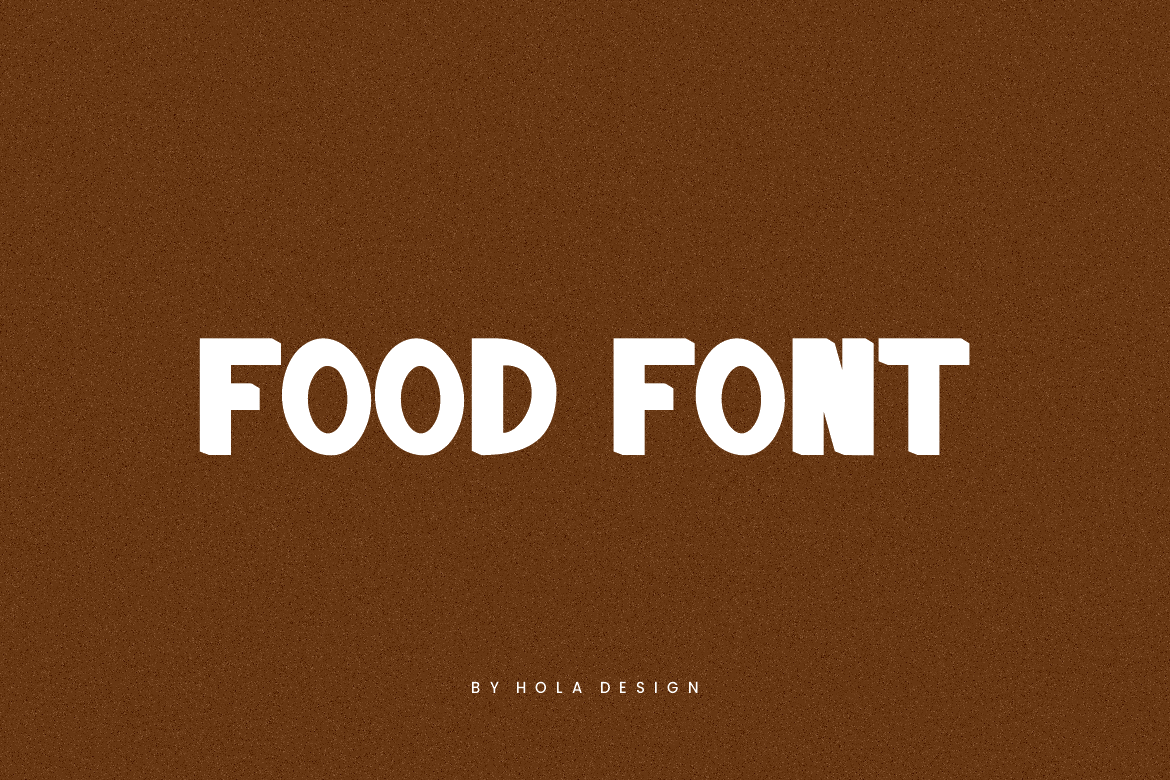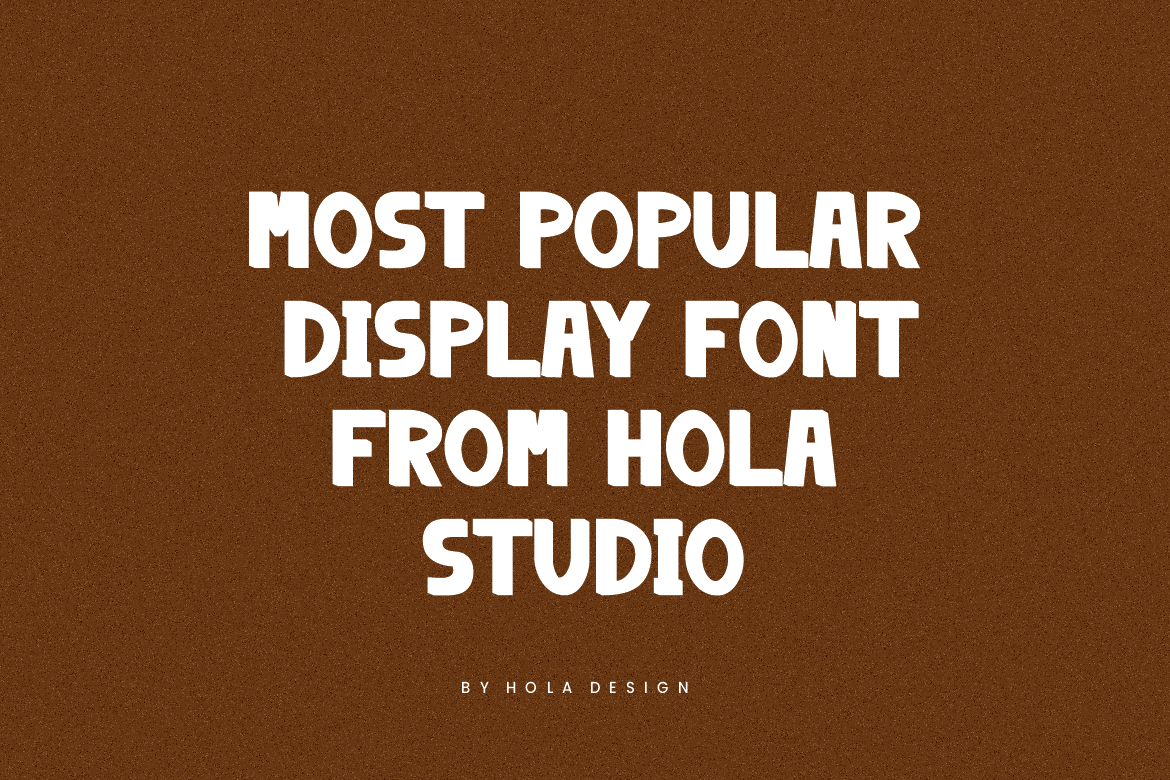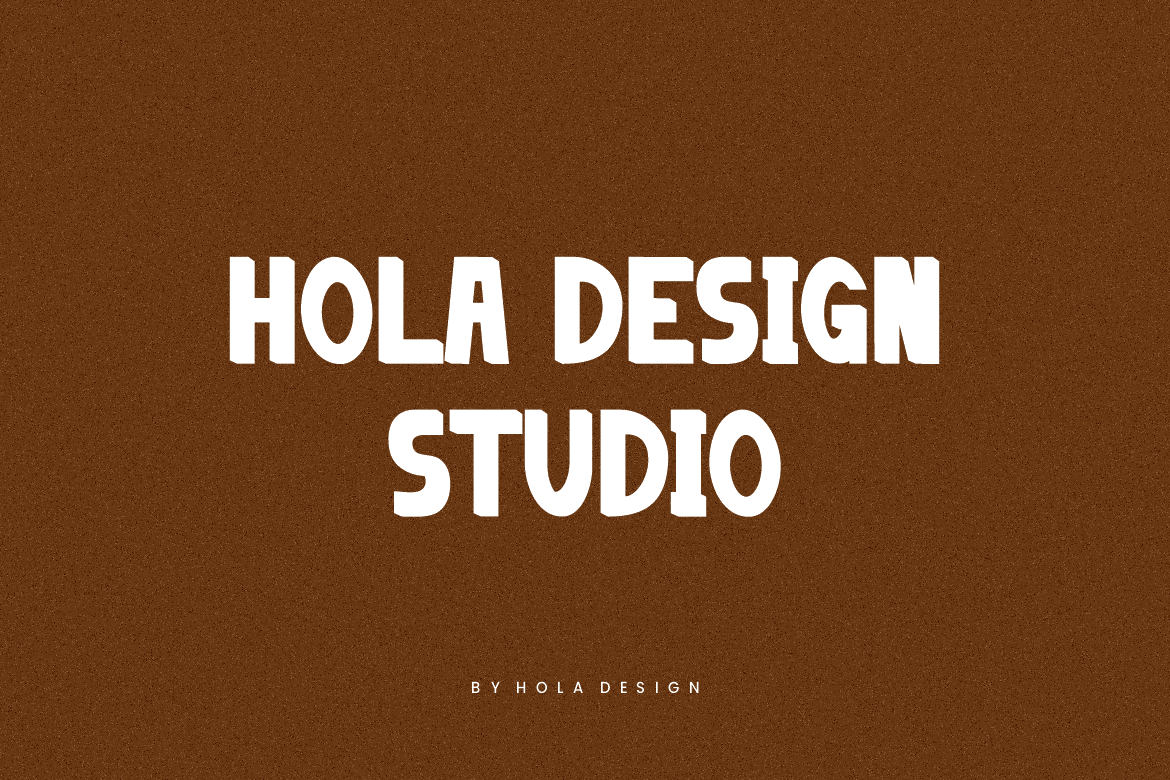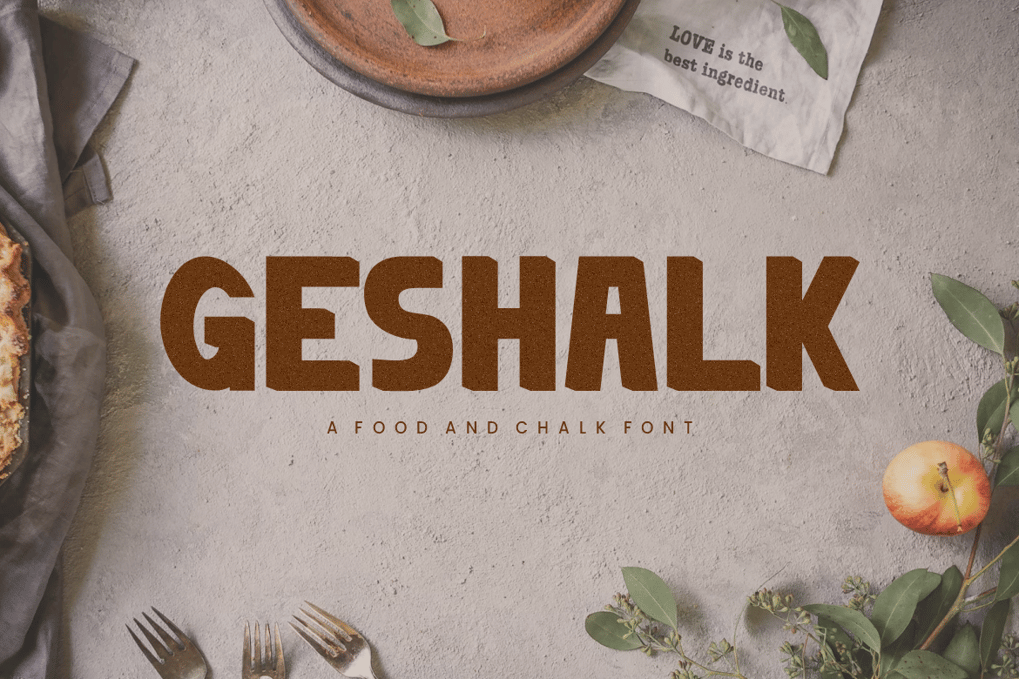
Geshalk Food Font Font is unique . Ready to use for your design like labeling,food menu,poster menu, movie sceen, poster, movie title, gigs, album covers, logos, and much more.